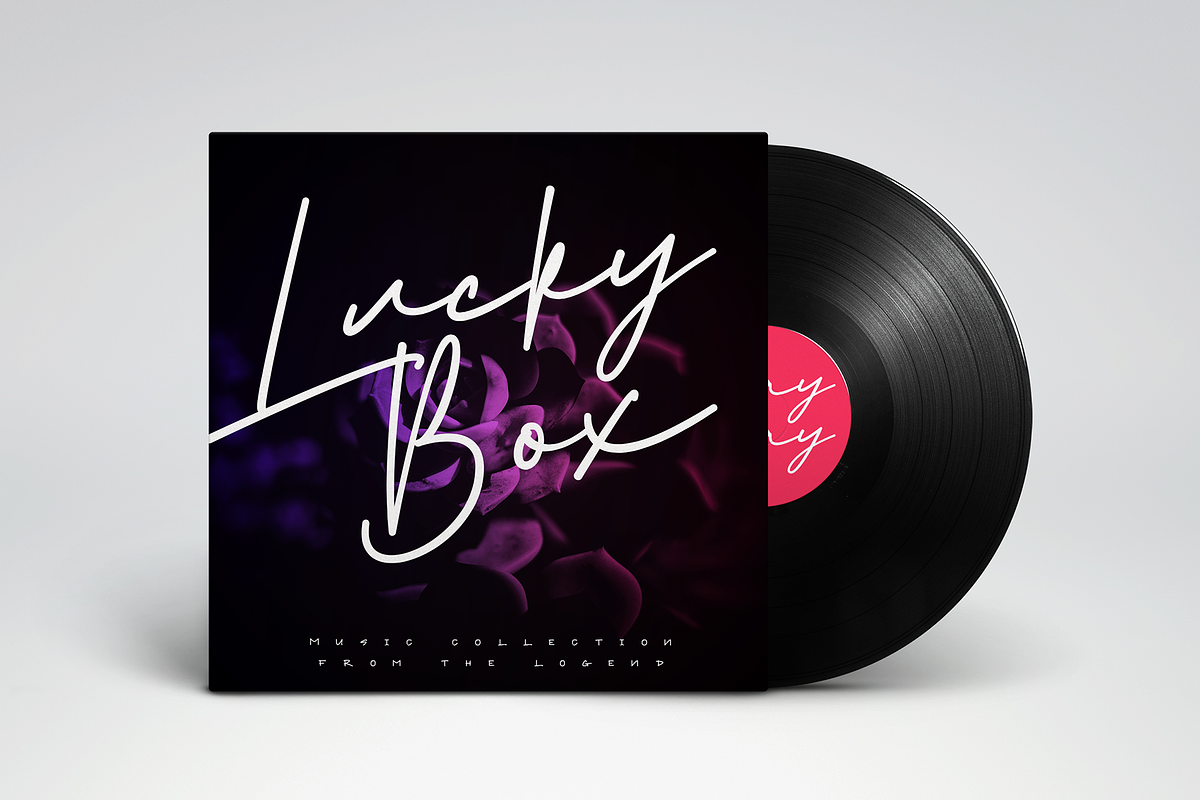
Nebbulla + 50 Minimalist Logo
Nebbulla is a font duo which gives an elegant classic touch to your projects.
Nebbulla font is to use for any kind of design such as branding projects, logos, wedding designs, social media posts, advertisements, product packaging, product designs, labels, photography, watermarks, invitation, stationery and any projects.
- New look Nebbulla Script font
- Stylistic Alternate